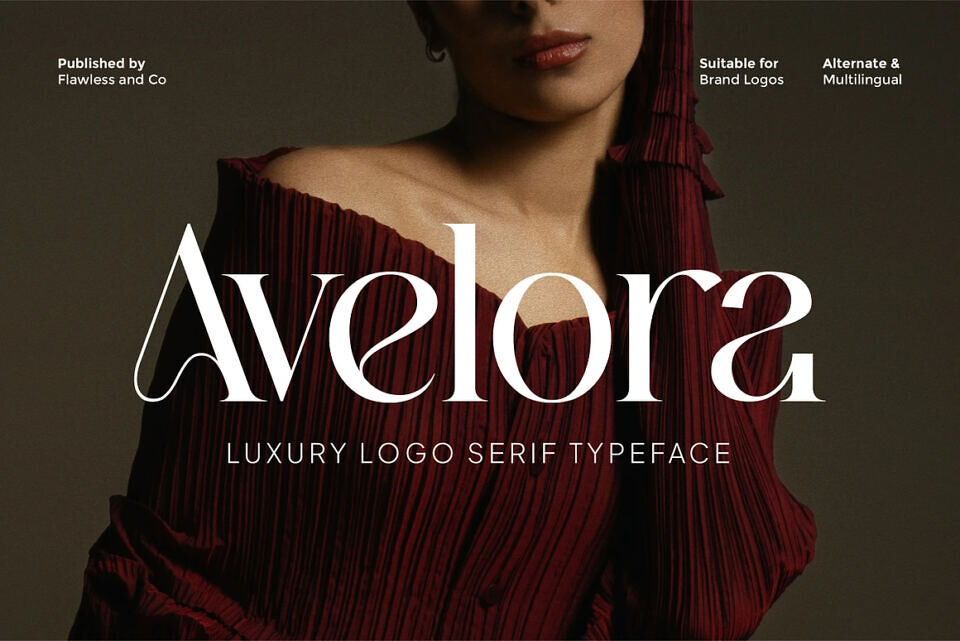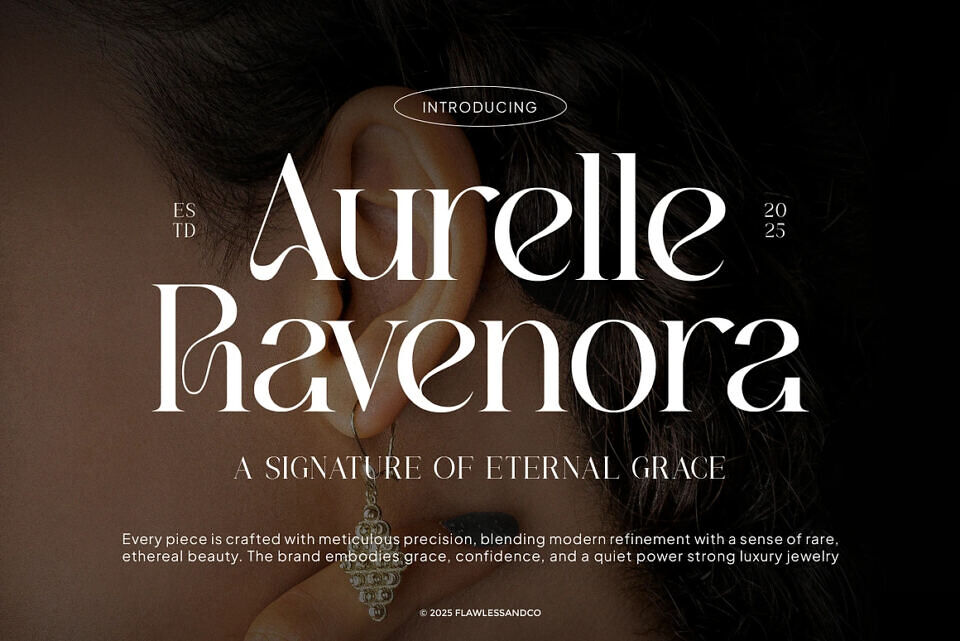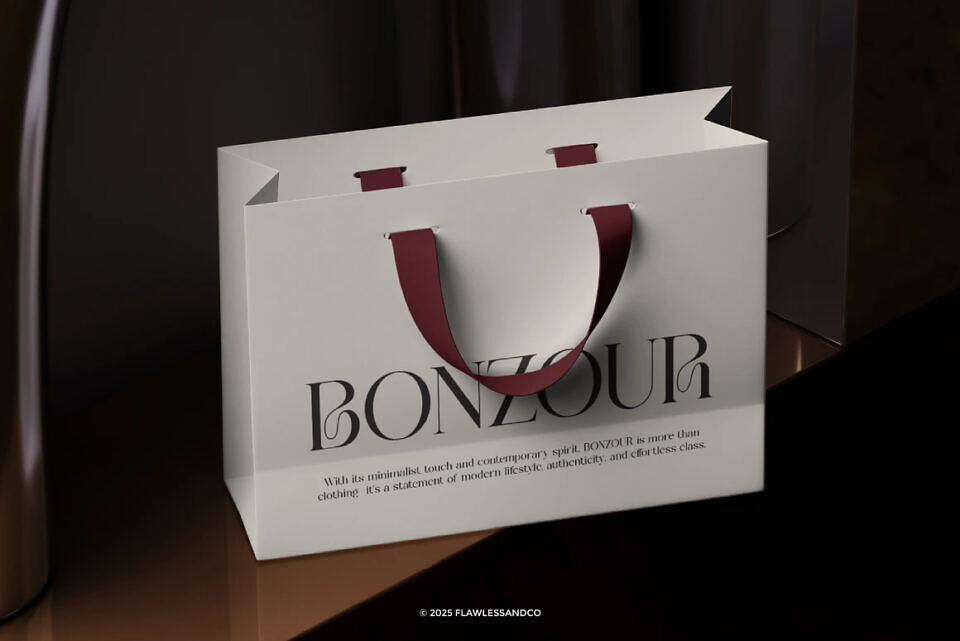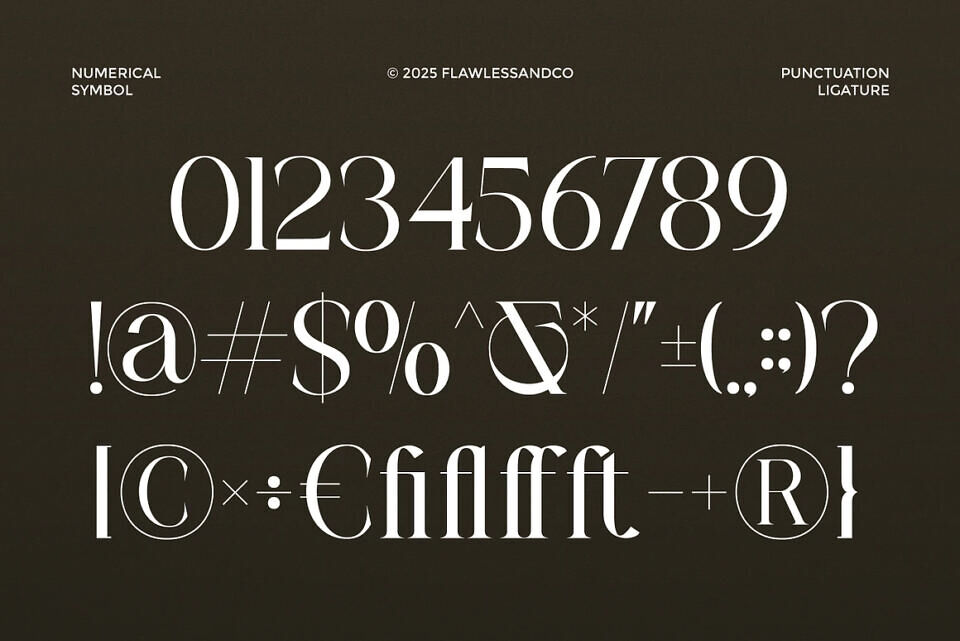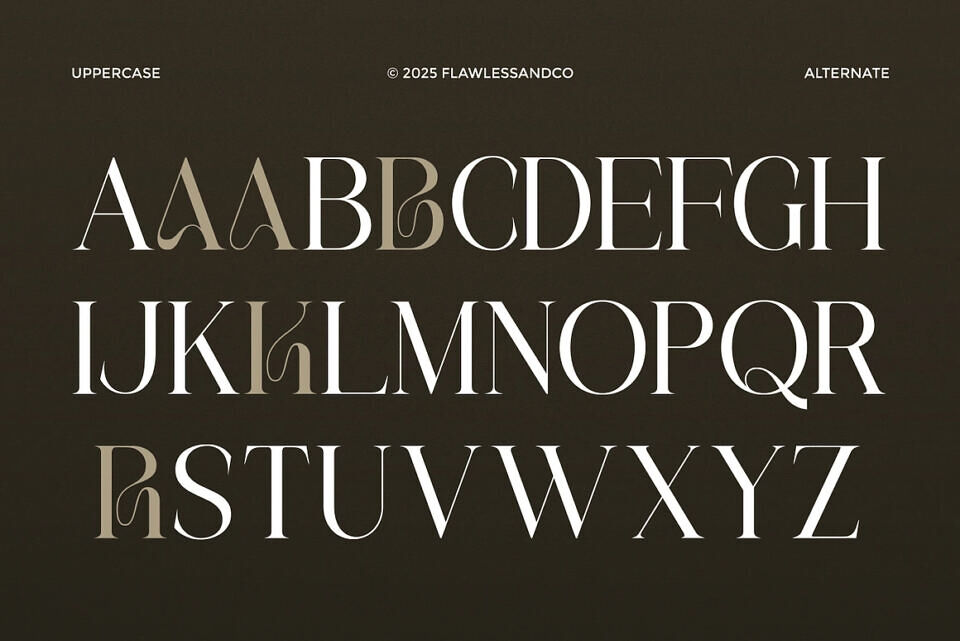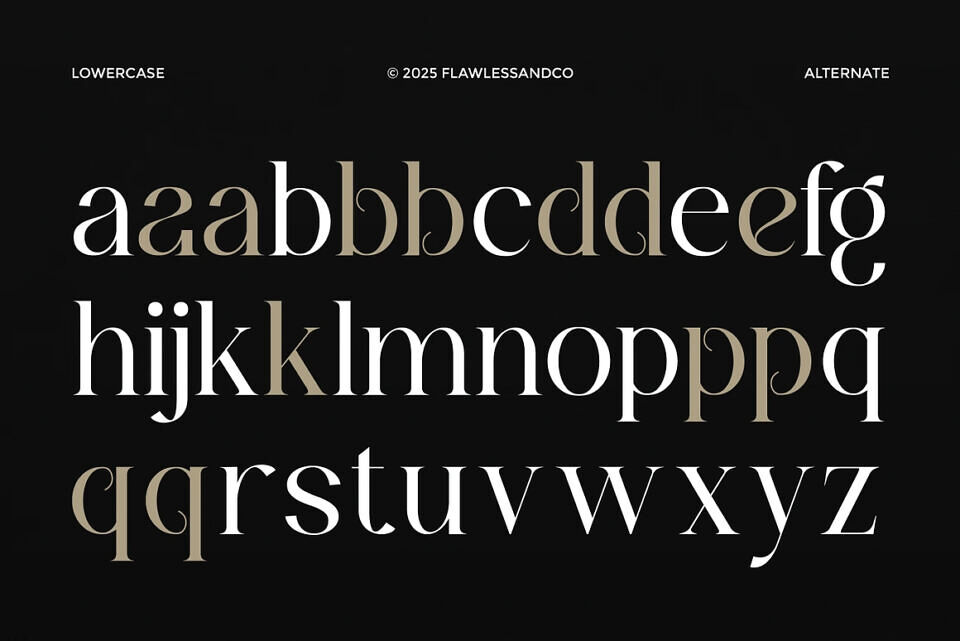
Avelora Font
Avelora – Luxury Logo Serif Typeface Avelora is a refined serif typeface designed exclusively for premium branding and elegant logo identities. With its graceful curves, high-contrast strokes, and modern luxury aesthetic, Avelora brings a sophisticated presence to every project.
Use Avelora to elevate fashion branding, beauty products, editorial layouts, packaging, wedding designs, or any creative project that demands a high-end visual signature.